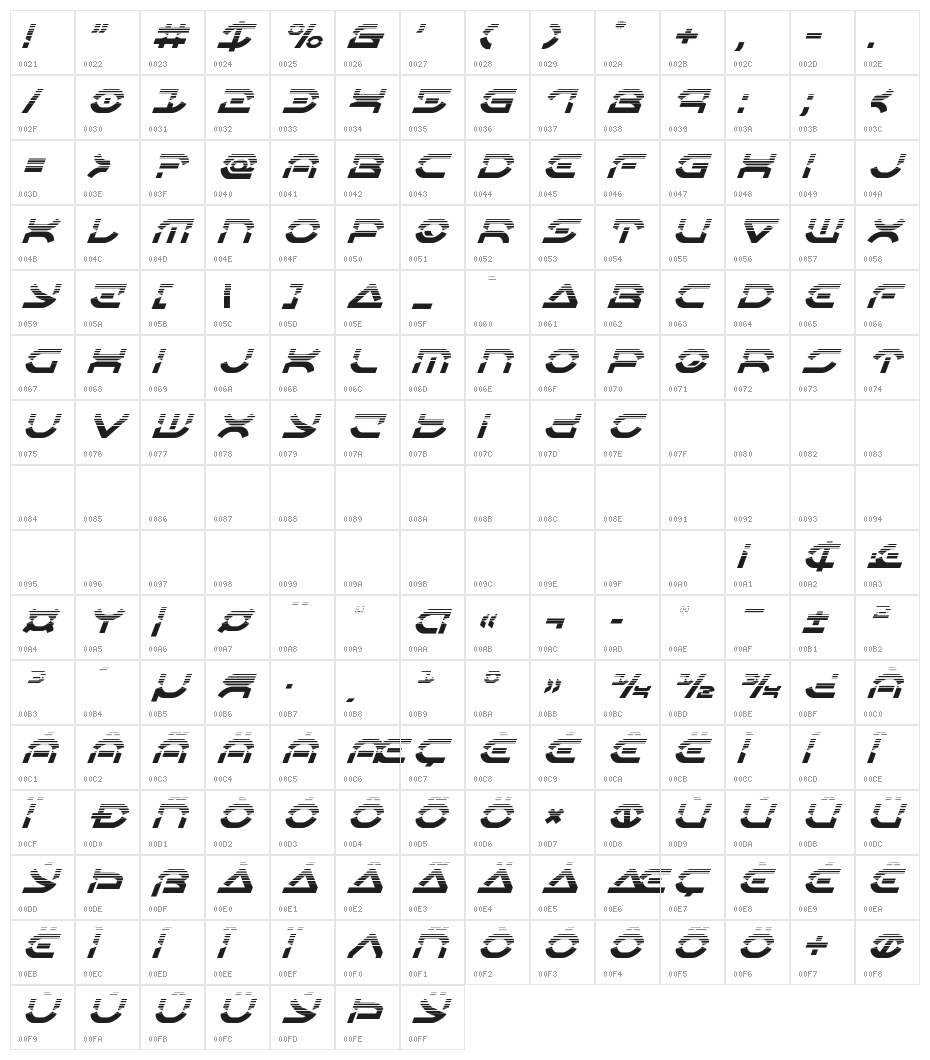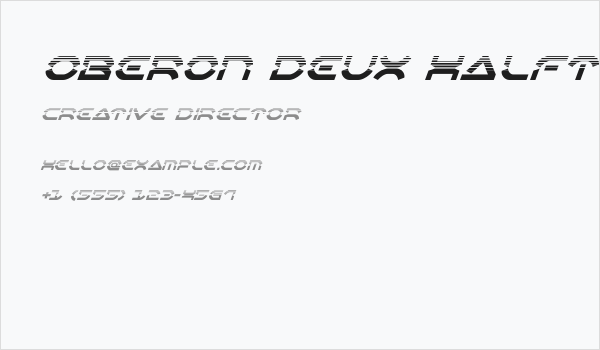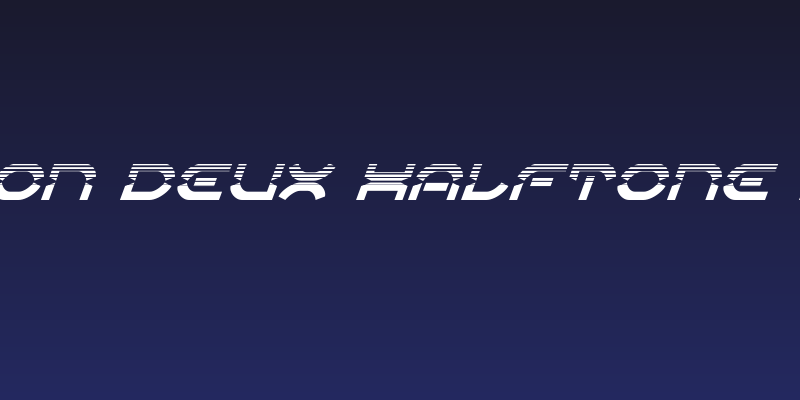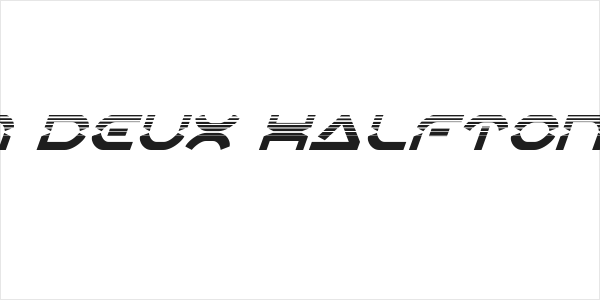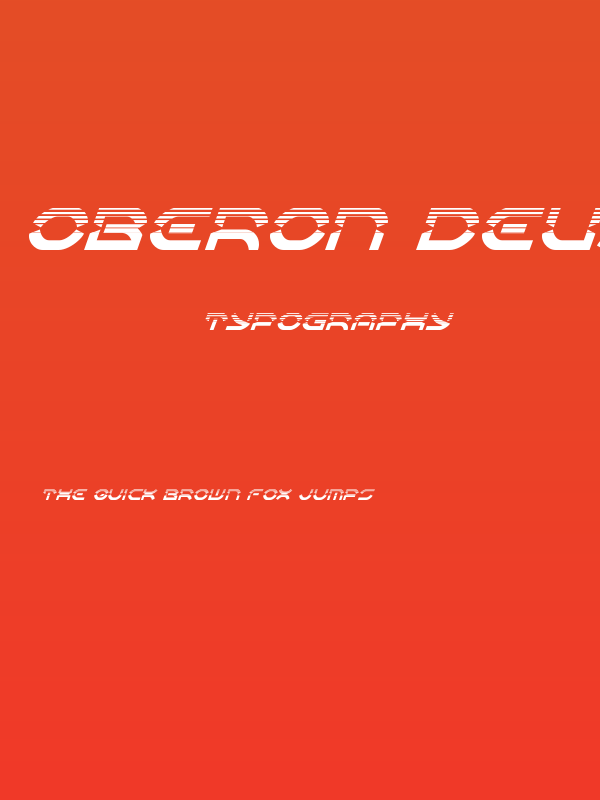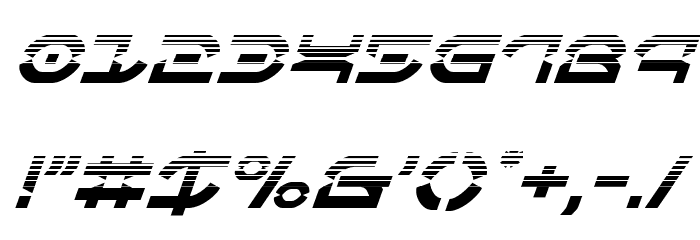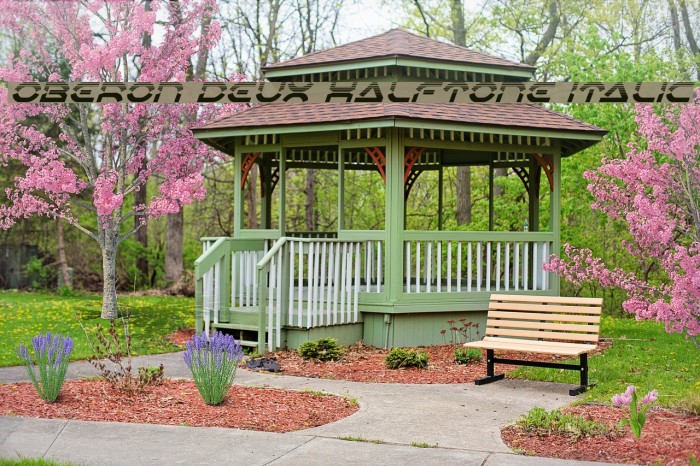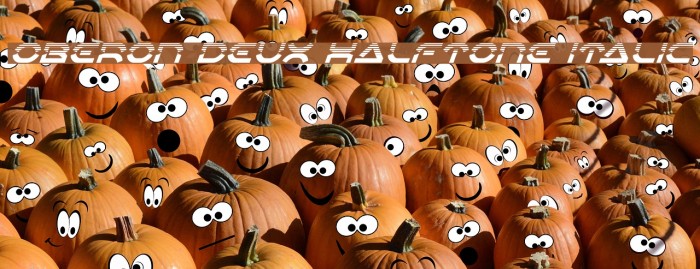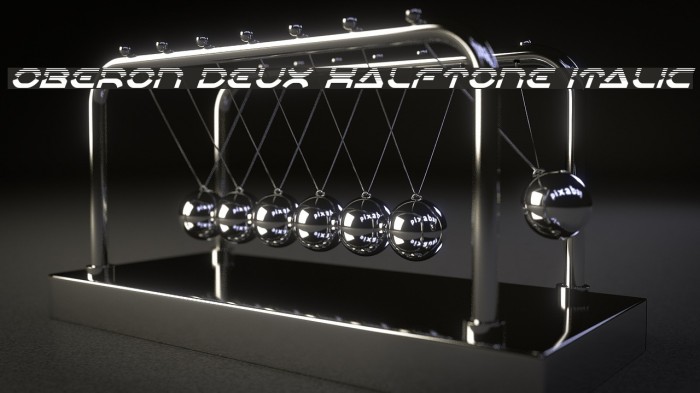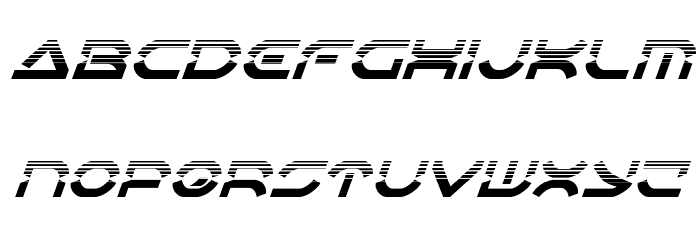
Oberon Deux Halftone Italic Font
Oberon Deux Halftone Italic Description
This font exhibits a bold and dynamic style with a futuristic and geometric design. The characters are italicized, featuring a halftone effect that adds a sense of movement and modernity. The uppercase and lowercase letters maintain a consistent slant, enhancing the italicized appearance. The numbers and special characters follow the same design principles, ensuring uniformity across the typeface. The use of horizontal lines within the characters creates a unique texture, making it stand out as a display font. Its bold strokes and angular forms contribute to a strong visual impact, suitable for eye-catching designs.
| Overall Style | Futuristic, Modern |
| Proposed Projects | Ideal for sci-fi themed posters, modern branding, video game titles, and futuristic advertisements. |